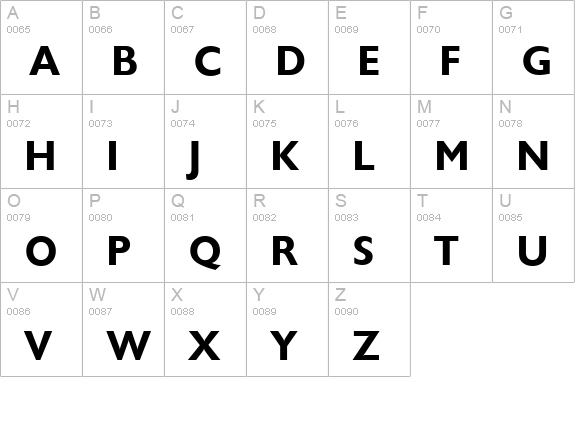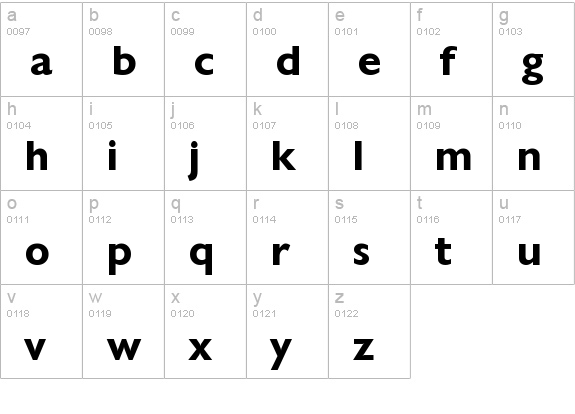
ChantillySerial-Bold is a strong, high-contrast variant in the ChantillySerial typeface family \xE2\x80\x94 well suited to headlines, attention-grabbing titles, and strong calls-to-action.